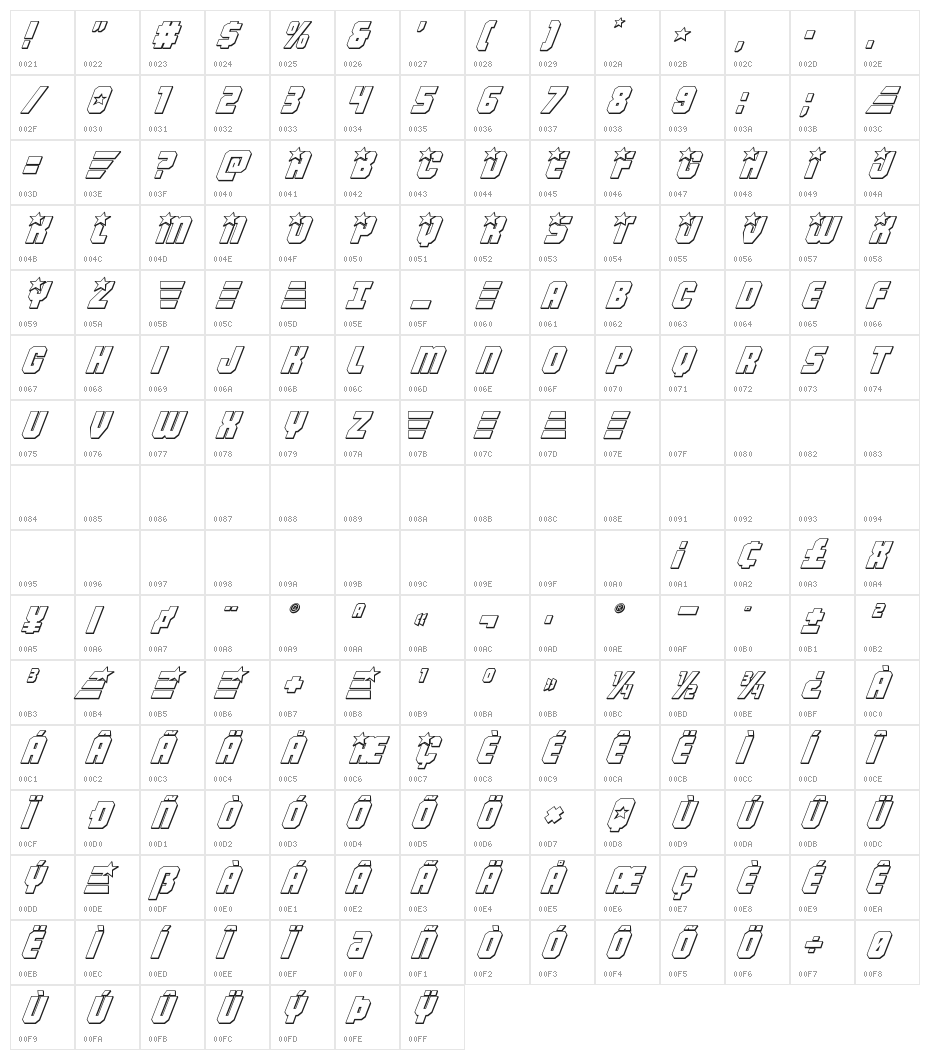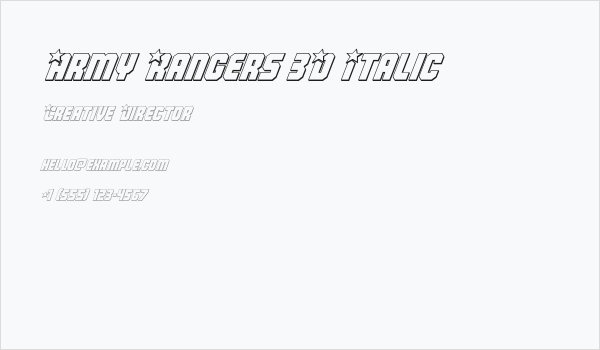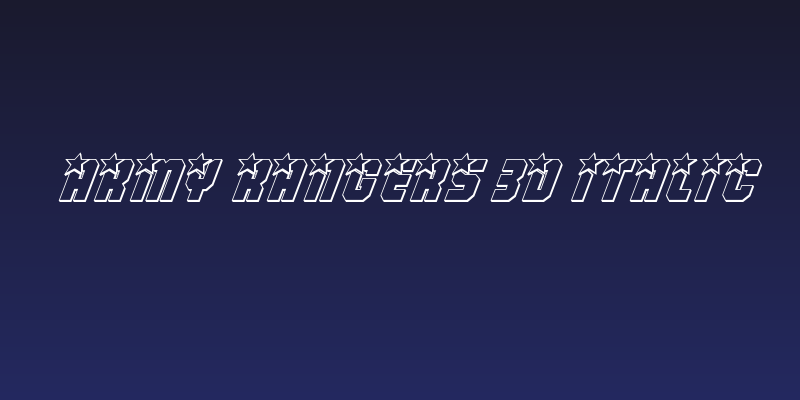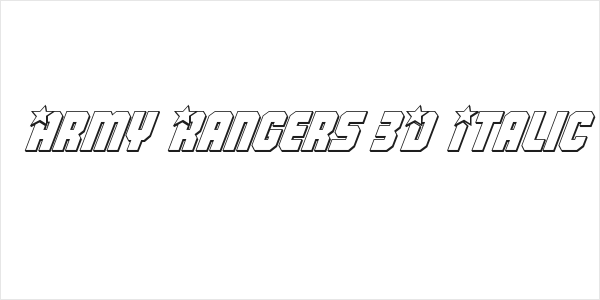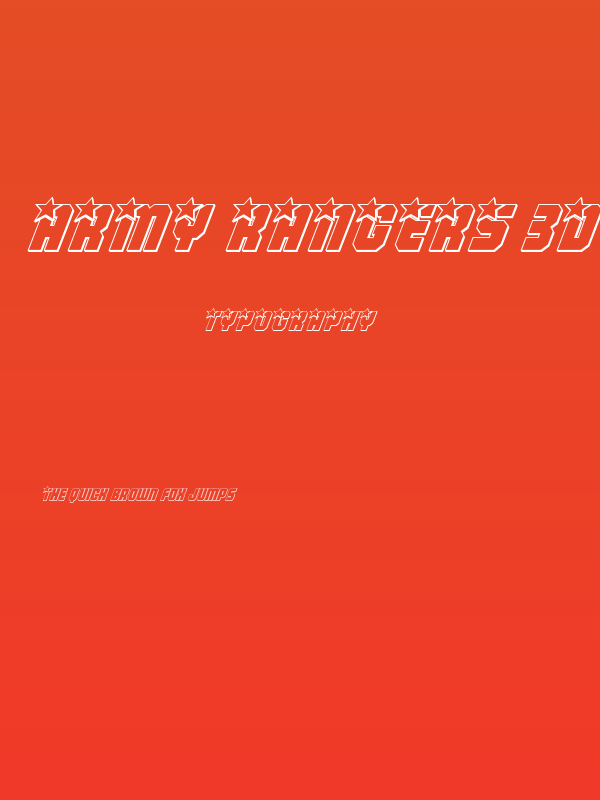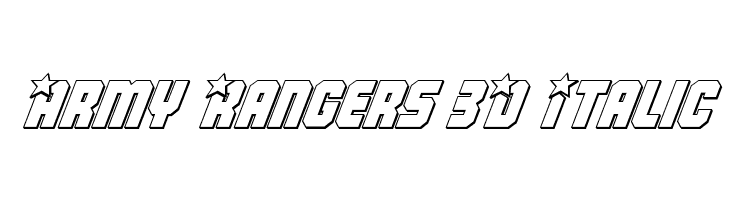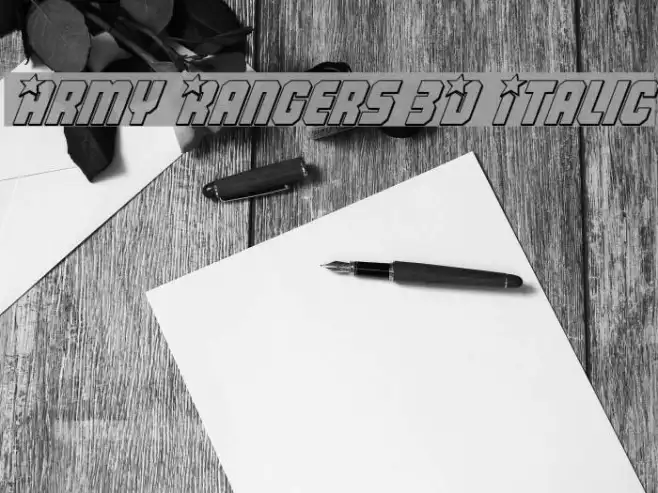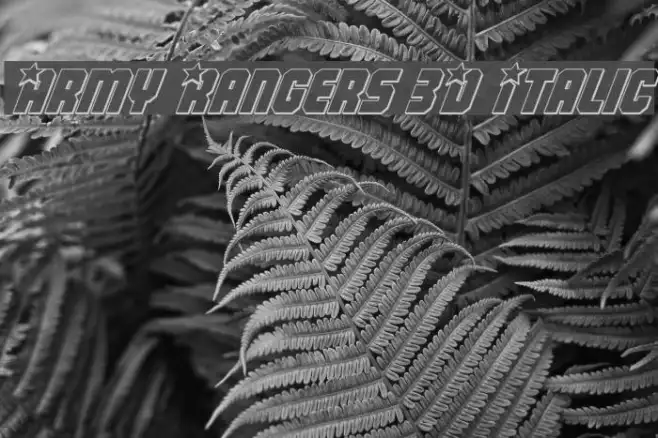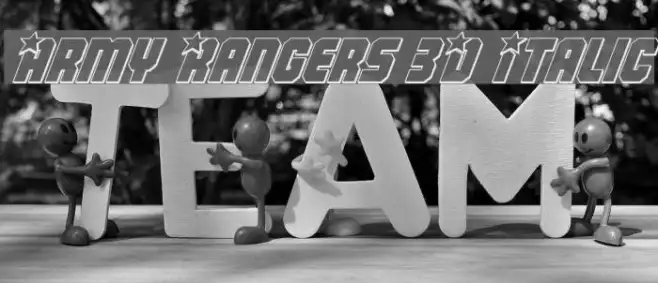
Army Rangers 3D Italic Font
Army Rangers 3D Italic Description
This font features a bold, three-dimensional design with a distinct italic slant, giving it a dynamic and energetic appearance. The uppercase letters are adorned with star motifs, adding a decorative and patriotic flair. The characters are outlined, enhancing the 3D effect and making them stand out. The font includes a full set of uppercase letters, numbers, and a variety of special characters, making it versatile for different uses. Its strong geometric shapes and bold lines convey a sense of strength and authority, suitable for impactful designs.
| Proposed Projects | Ideal for military-themed designs, posters, logos, and headlines that require a bold and authoritative look. |